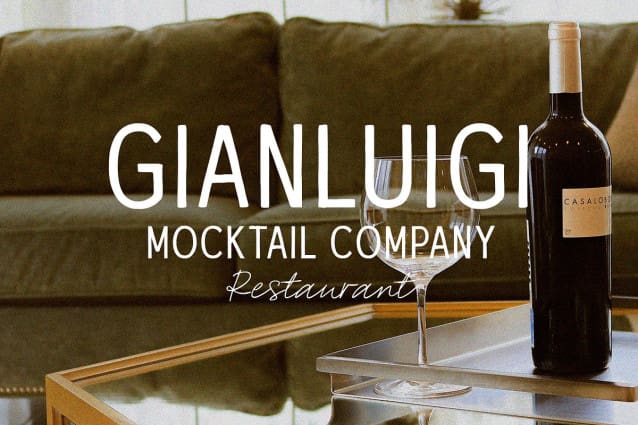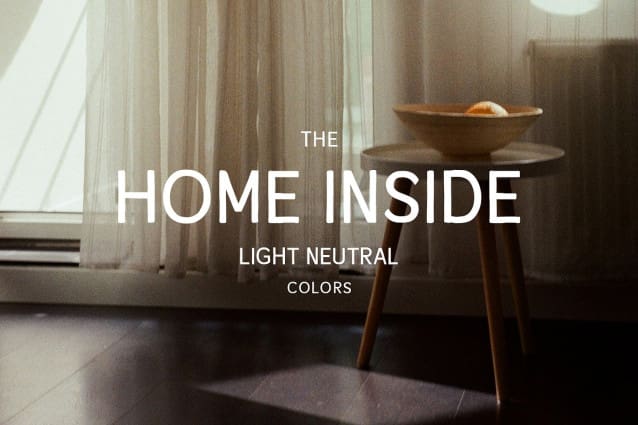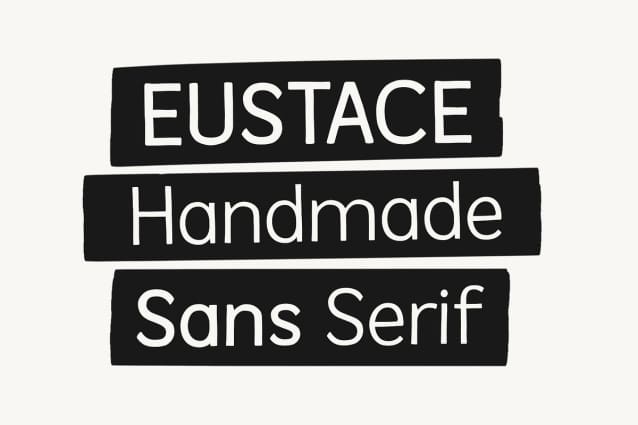
Eustace Font
Eustace Font is a handcrafted sans serif font that strikes the perfect balance between simplicity and warmth. With its clean lines and smooth curves, it has a relaxed, approachable feel that makes it easy to work with. The font also comes in a condensed style, adding a modern twist to its classic design. Eustace’s unique, handmade character gives it a distinctive edge, making it stand out while still being versatile enough for a wide range of projects. Whether you’re looking for something clean and straightforward or with a bit of personality, Eustace brings that handcrafted charm to the table.